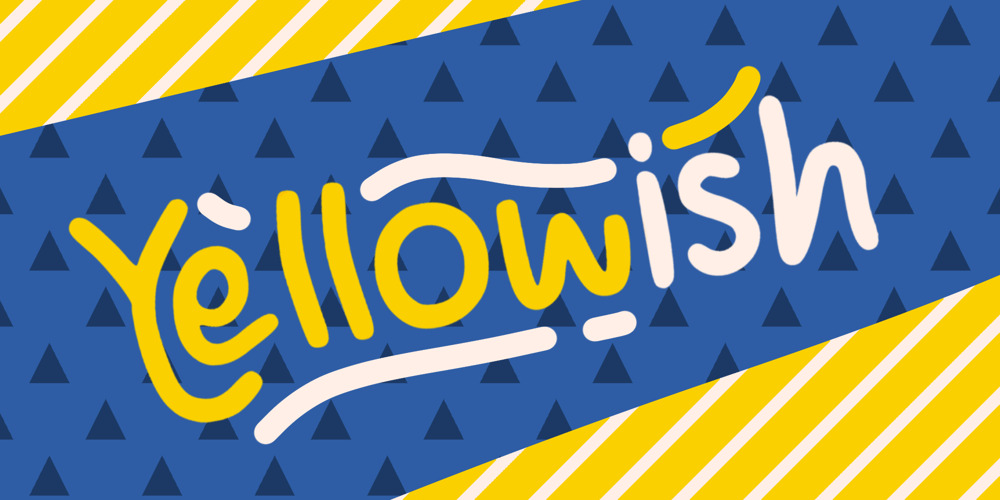
Yellowish Font Family was designed by Zaizafun Hanifah and published by Daily Studio. Yellowish contains 1 styles and family package options. Yellowish – a typeface designed by Daily Studio. This font is a curls-style font, it can make your design more cheerful. you can enjoy and play with the uppercase or lowercase to make it more entertaining. Perfect for header, poster, title, and cards. Yellowish contains full uppercase, lowercase, punctuation, and multilingual letters.